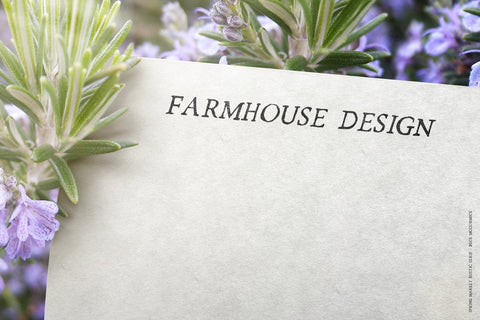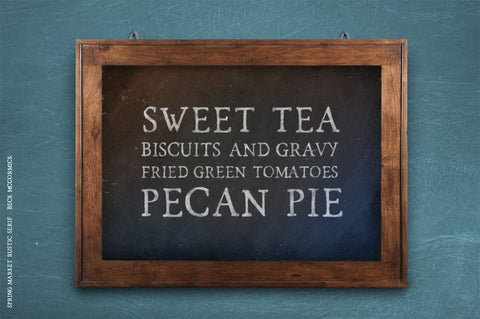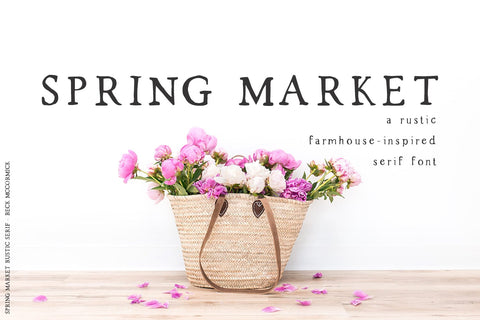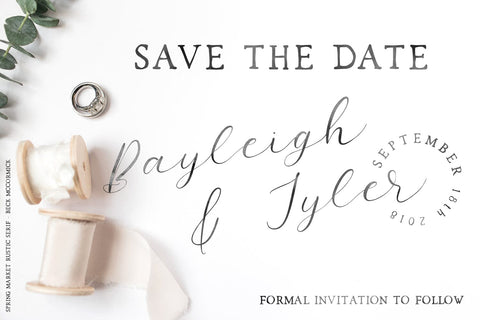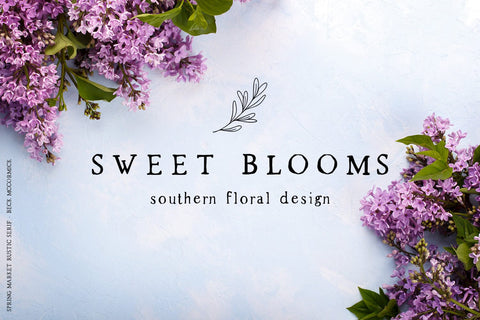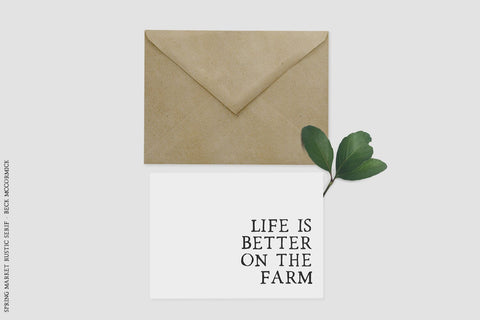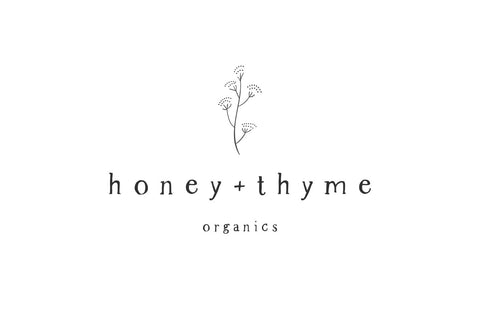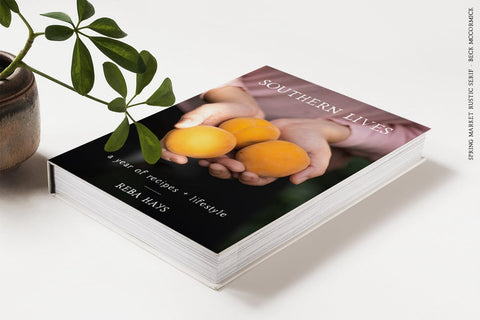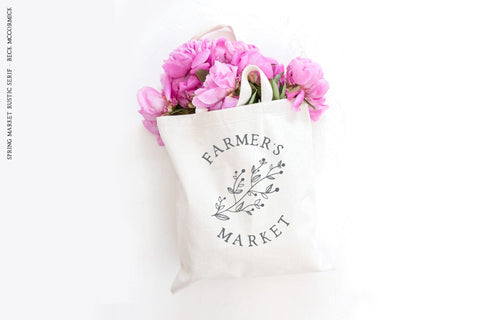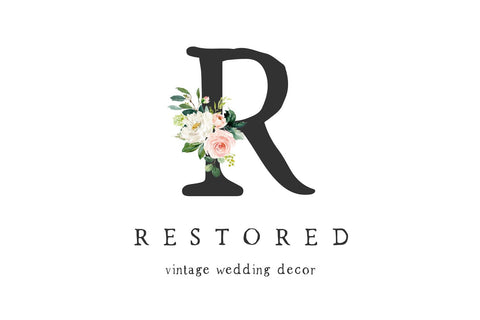
Spring Market Rustic Farmhouse Serif
Spring Market is a farmhouse-style serif font. One of my first-ever releases, it was lovingly hand-drawn on an iPad. Spring Market has the perfect amount of rusticity and refinement for your next project. I recommend this font for logos, invitations, and your next home decor project that needs that shabby chic touch!